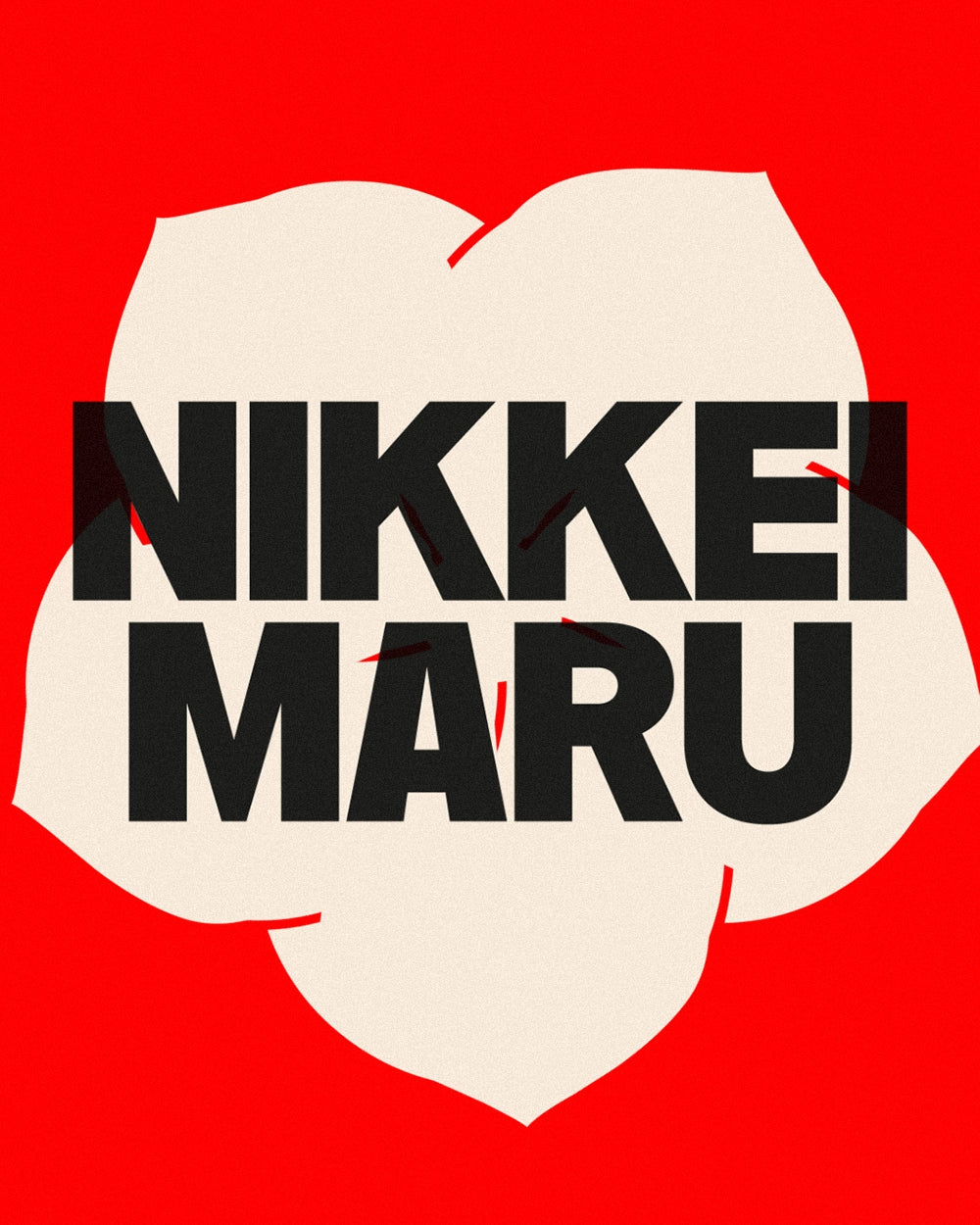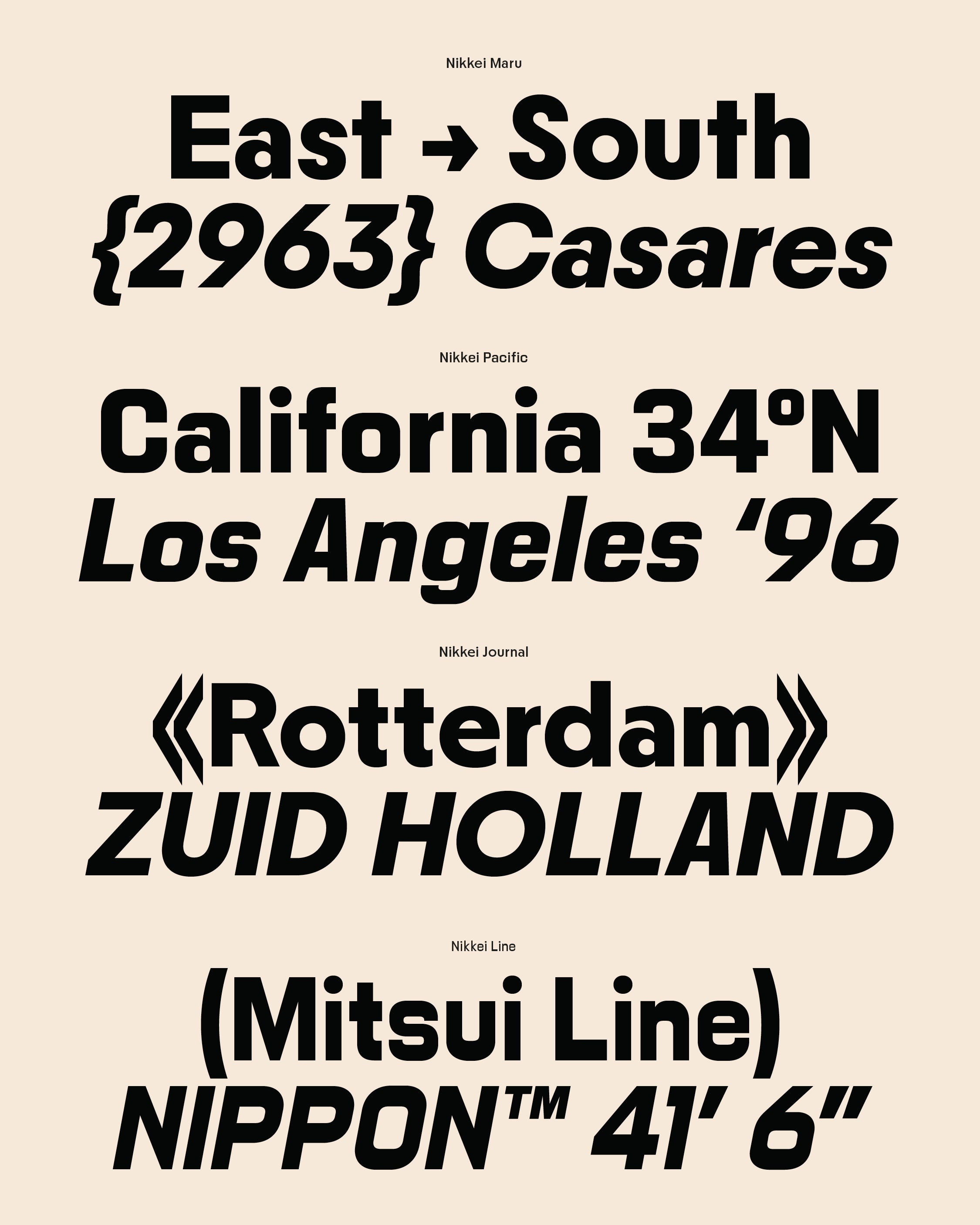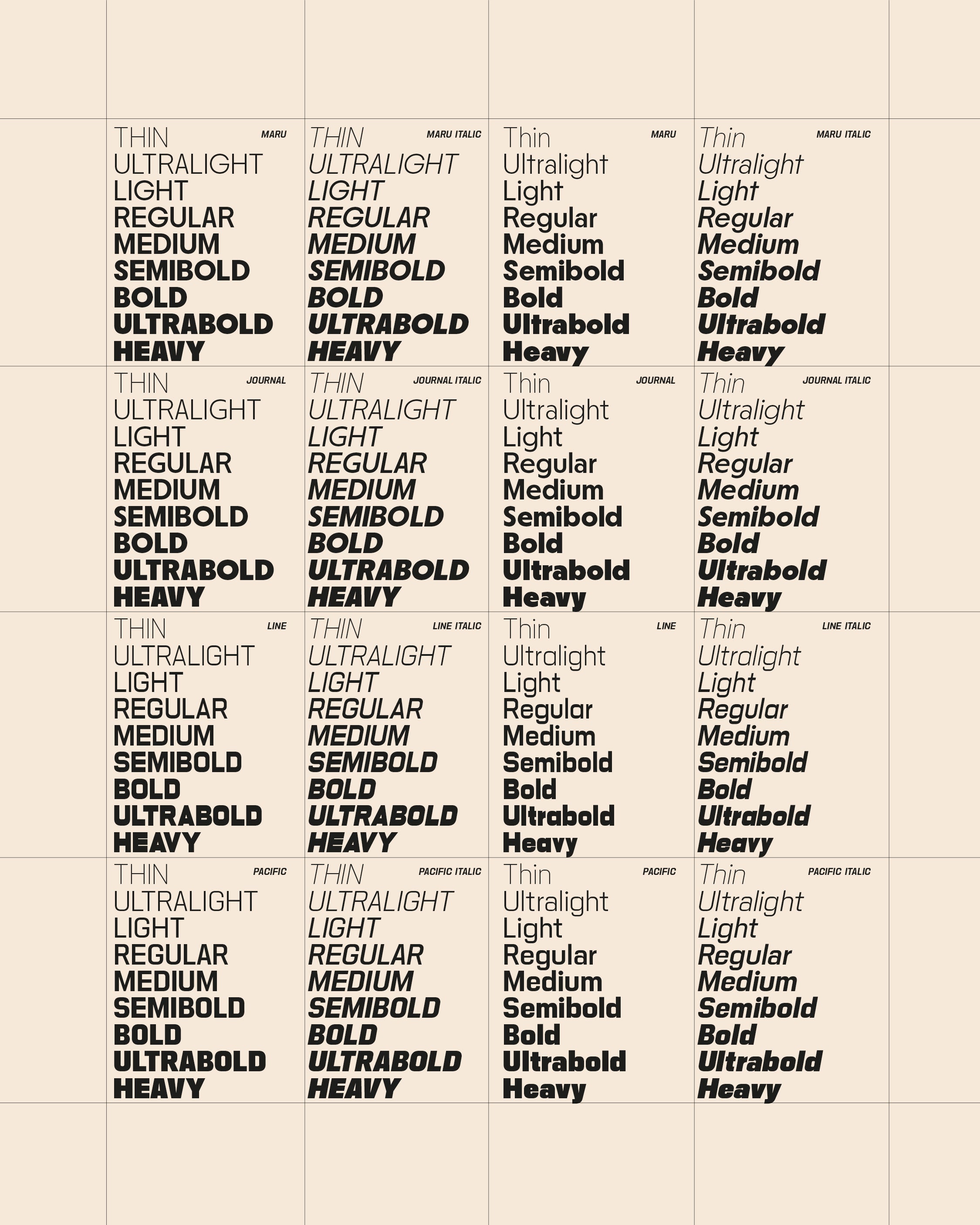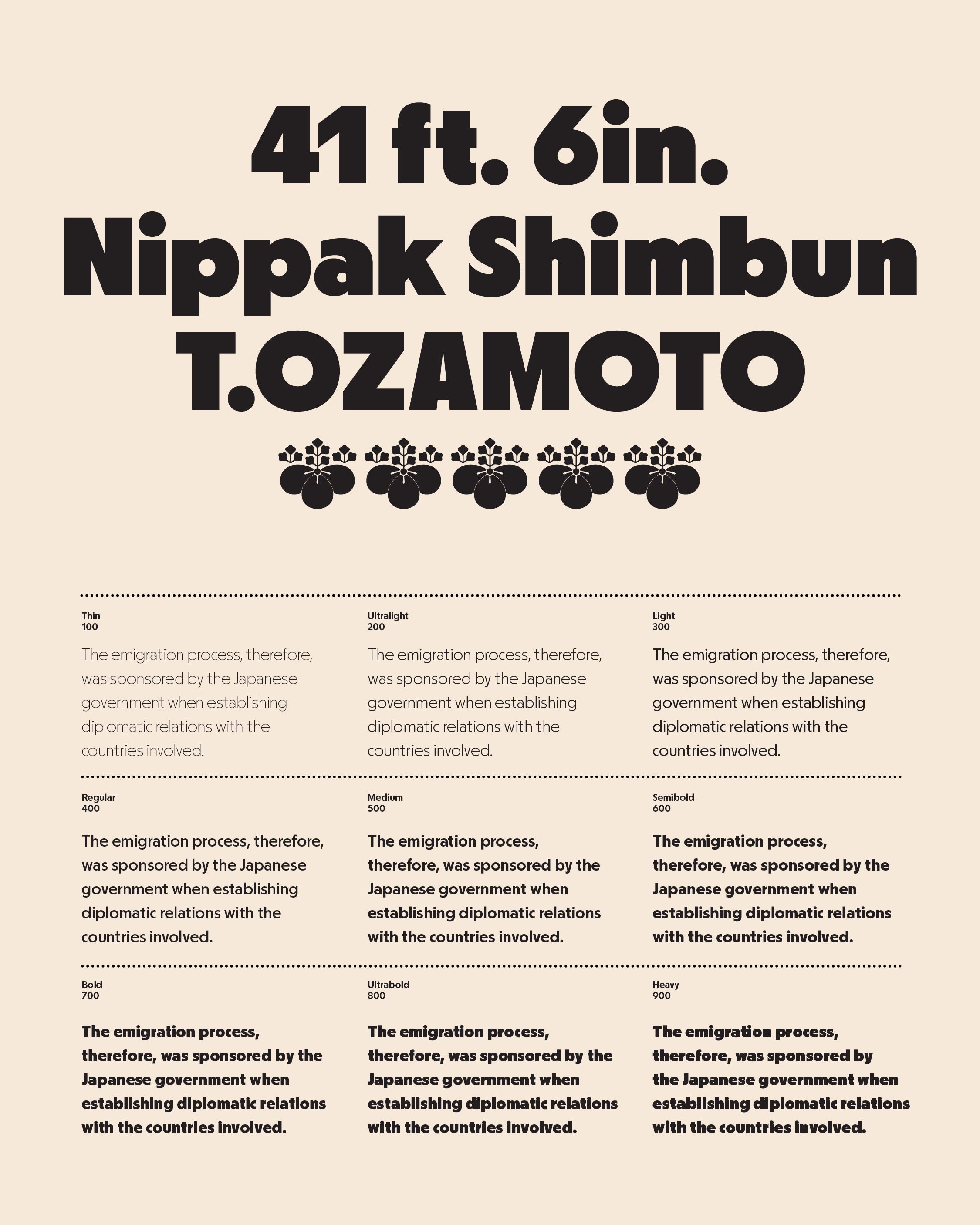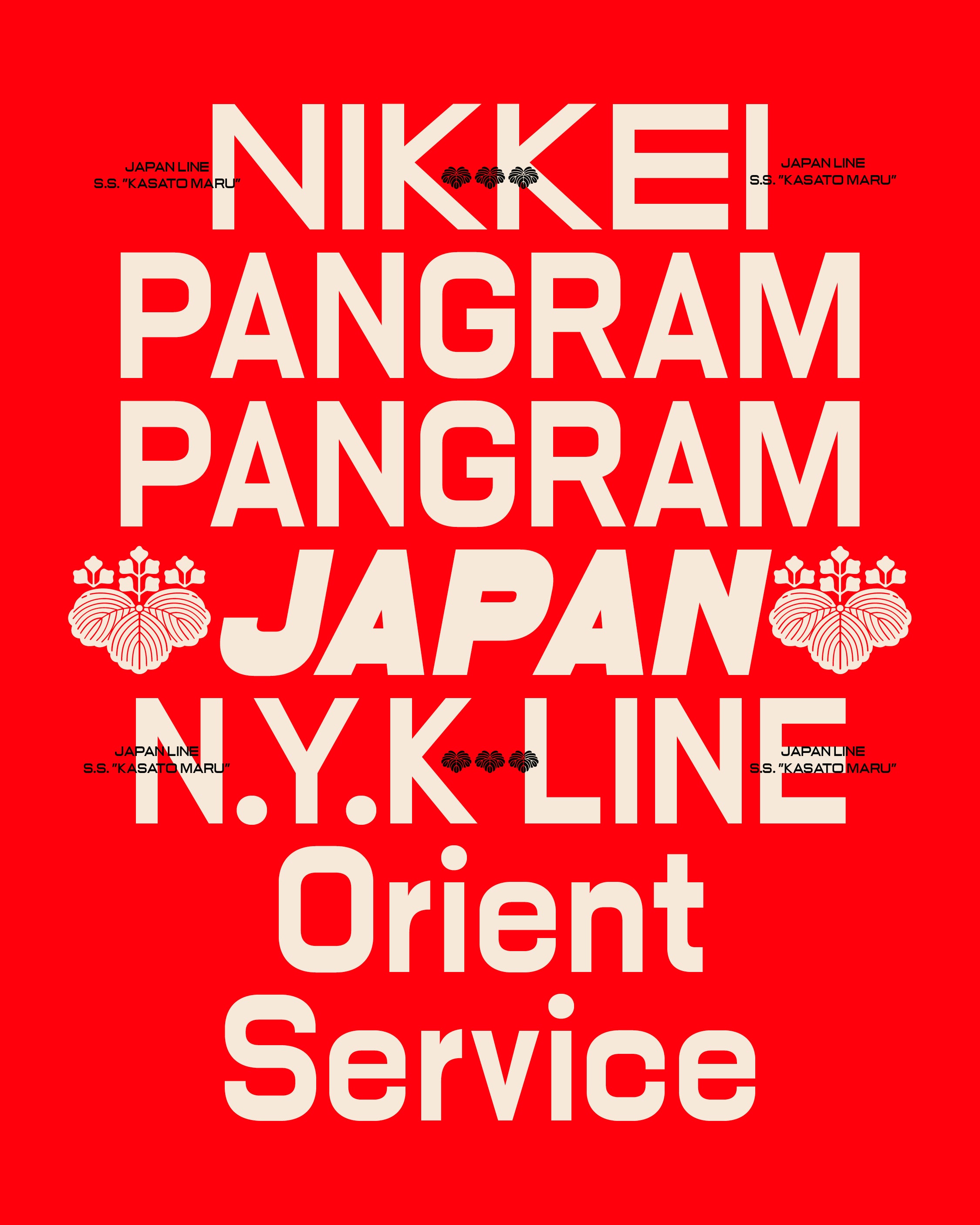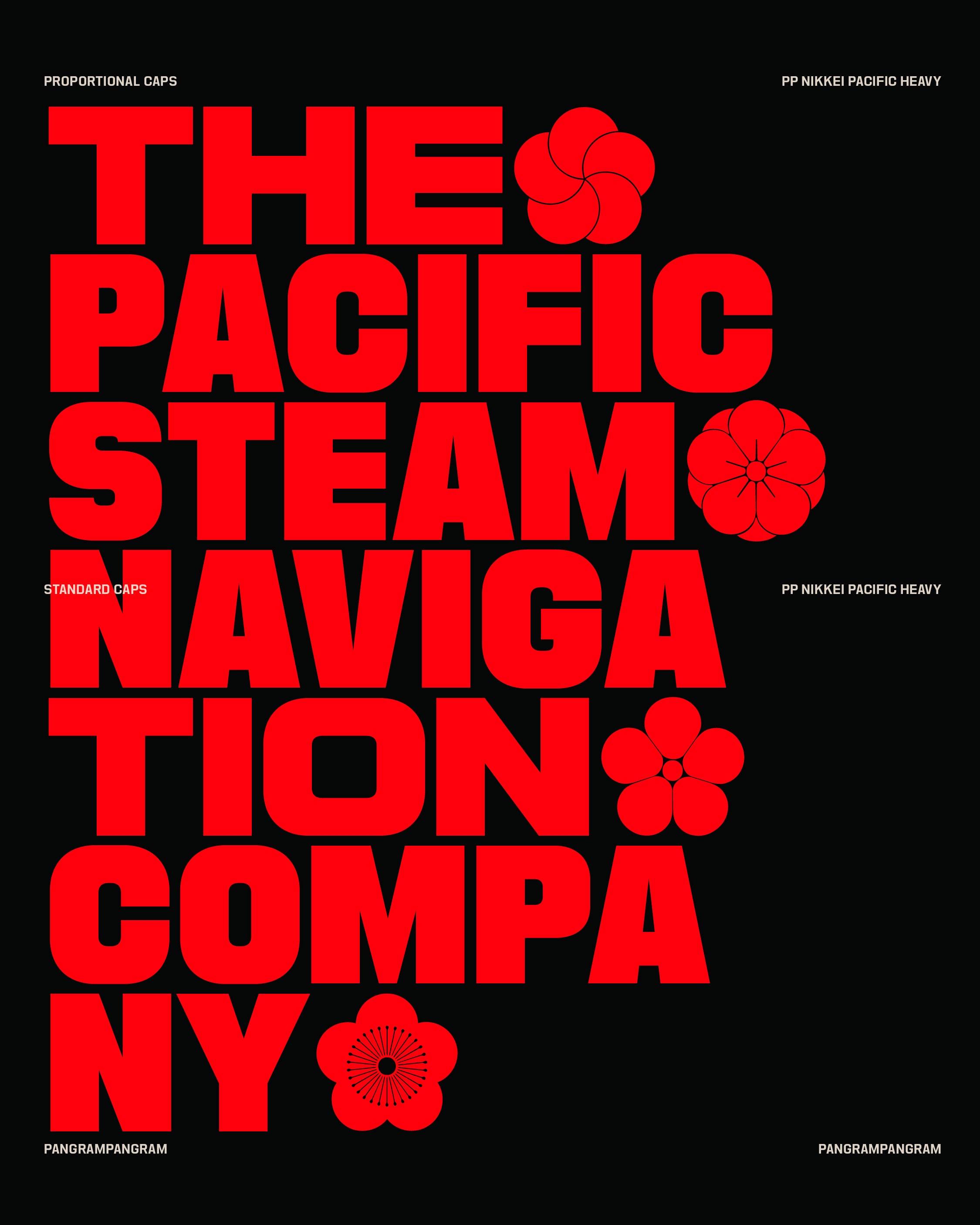
Nikkei
A tribute to Japanese immigration to America through typography.
A Typeface Woven With Memory.
PP Nikkei is a tribute to Japanese immigration to America through typography, honoring the stories of Japanese immigrants and their descendants. “Nikkei” refers to Japanese individuals and their descendants who live outside Japan.
Five typographic systems were made, each expressing unique concepts, yet all interlaced by a common historical narrative.
The inspiration came from various sources, including hand-lettered on ships; newspapers of the Nikkei communities; Japanese family crests. Offering versatile title fonts whose proportions and stylistic alternatives allow for playful options for title compositions.
4 Subfamilies x 18 Styles with 513 Glyphs each
Including Italics and a Crest Set